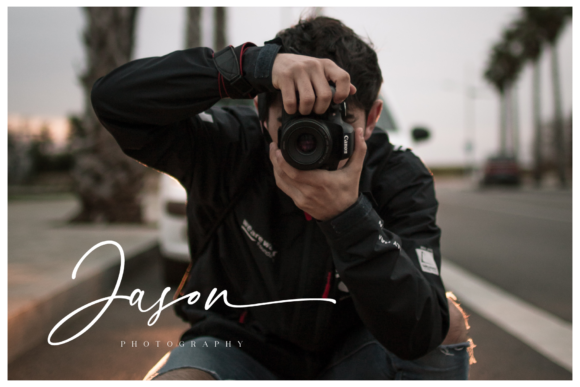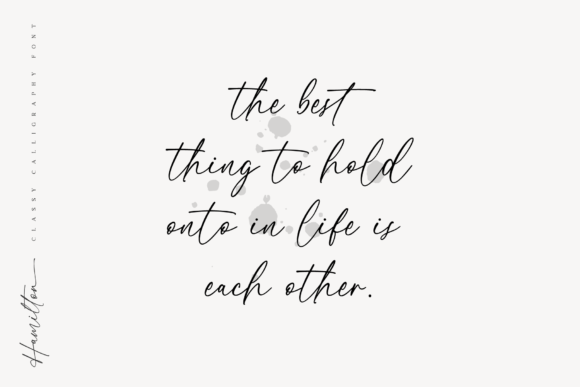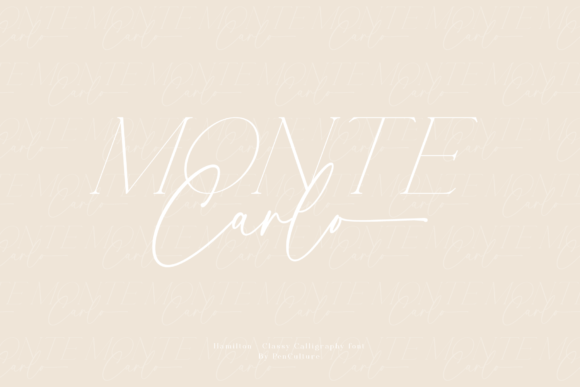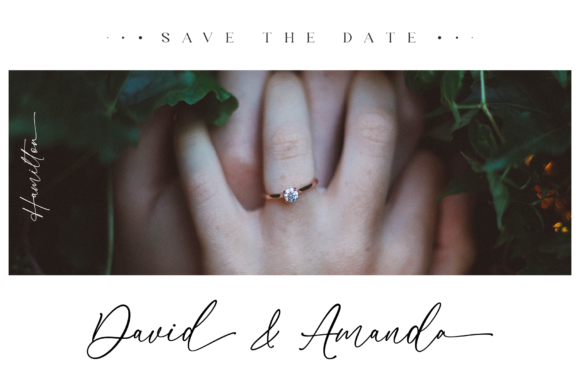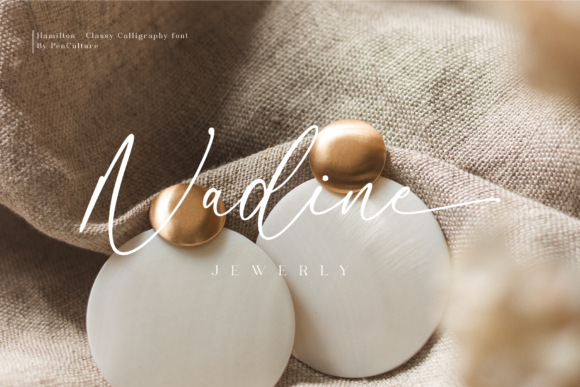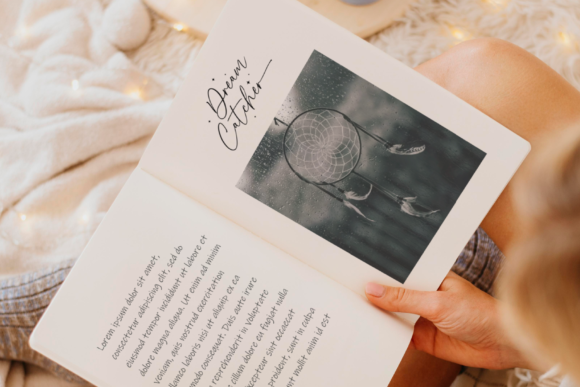
Hamilton Font: Elevate Your Designs with Modern and Classy Calligraphy
In the world of typography, a good font can make all the difference in elevating your designs from ordinary to extraordinary. If you’re a designer, crafty DIY enthusiast, or someone who appreciates beautiful lettering, you’re in luck. Introducing the Hamilton Font, a stunning modern and classy calligraphy font that’s perfect for a variety of creative projects. In this article, we’ll dive into the features and benefits of the Hamilton Font, and explore how it can enhance your designs.
A Beautifully Crafted Font
The Hamilton Font is a masterpiece of modern calligraphy, boasting a beautiful stroke that exudes elegance and sophistication. Its clean lines, flowing curves, and exquisite ligatures make it an ideal choice for designs that require a touch of refinement. Whether you’re creating wedding invitations, fashion cards, or any other type of visual project, the Hamilton Font is sure to impress.
Key Features of the Hamilton Font
- Beautiful Ligatures and Alternates: The Hamilton Font comes with a range of gorgeous ligatures and lovely alternates, allowing you to add a personal touch to your designs.
- Versatile: The Hamilton Font is suitable for a wide range of applications, including wedding invitations, fashion cards, branding, and more.
Why Choose the Hamilton Font?
With so many fonts available, why choose the Hamilton Font? Here are just a few reasons why this font stands out:
- Unique and Eye-Catching: The Hamilton Font’s modern and classy design ensures your projects will stand out from the crowd.
- High-Quality: The Hamilton Font is crafted with attention to detail, ensuring a high level of quality that will reflect positively on your designs.
Using the Hamilton Font in Your Designs
So, how can you incorporate the Hamilton Font into your projects? Here are a few ideas to get you started:
- Wedding Invitations: Add a touch of elegance to your wedding invitations, save-the-dates, or thank-you cards.
- Fashion Cards: Elevate your fashion brand with stylish business cards, letterheads, or promotional materials.
- Branding: Use the Hamilton Font to create a cohesive brand identity that exudes sophistication and refinement.
In conclusion, the Hamilton Font is a stunning modern and classy calligraphy font that’s perfect for designers, crafters, and anyone looking to elevate their designs. With its beautiful stroke, lovely ligatures, and PUA encoding, this font is sure to become a go-to choice for a wide range of creative projects. Whether you’re working on wedding invitations, fashion cards, or branding materials, the Hamilton Font is an excellent choice. So why wait? Download the Hamilton Font today and take your designs to the next level!